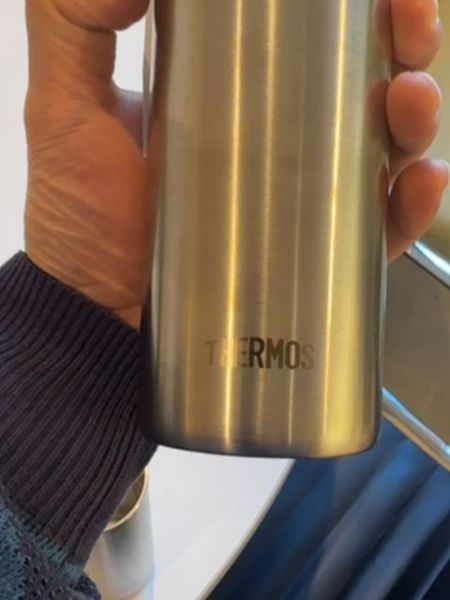
Thermos
A Thermos is a vacuum-insulated container designed to keep liquids hot or cold for an extended period. It is commonly used for beverages like coffee or tea.
1904
USA
The typography on the Thermos is bold and sans-serif, which conveys modernity and robustness. The use of uppercase letters enhances visibility and reinforces the brand's strong identity.
The packaging is minimalistic, featuring a sleek, stainless steel finish that emphasizes durability and practicality. Its cylindrical shape is easy to grip, making it convenient for everyday use.
- The Thermos brand was first established in 1904.
- It uses vacuum insulation technology to maintain temperature.
- Thermos products are popular worldwide for outdoor activities and daily commutes.